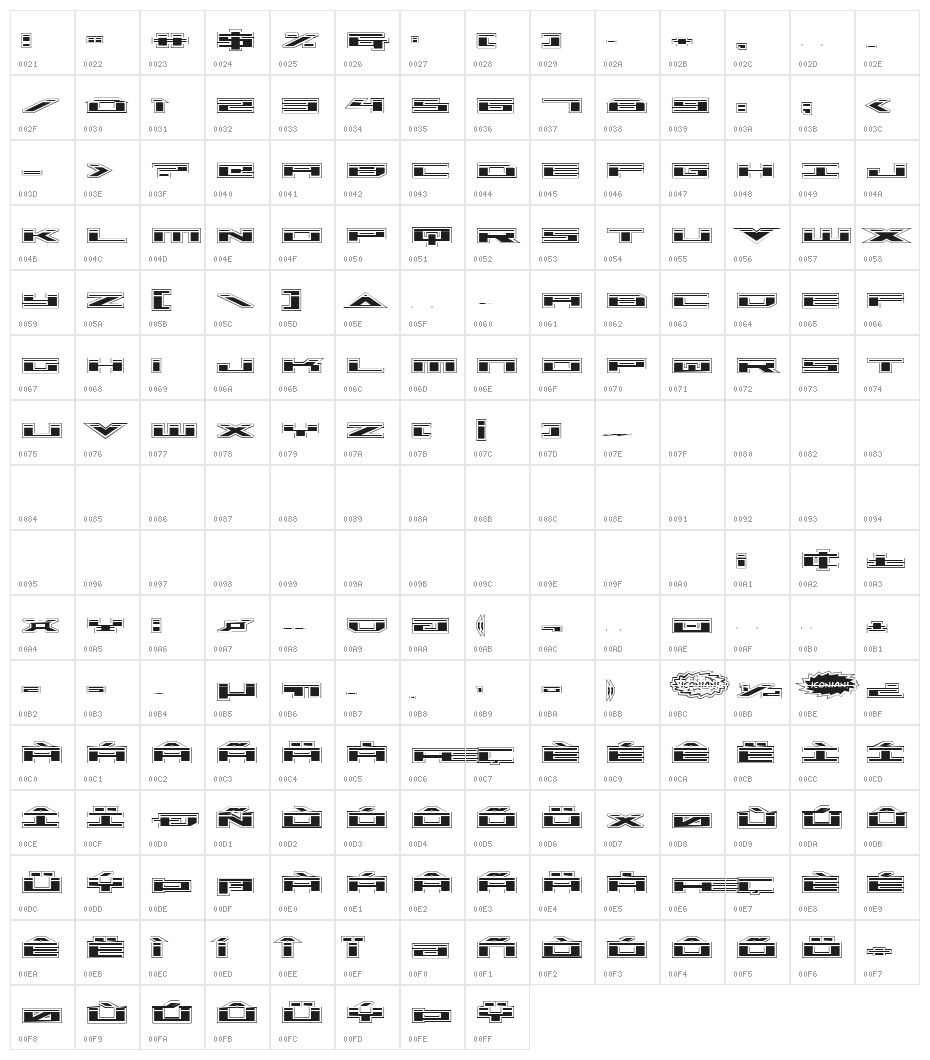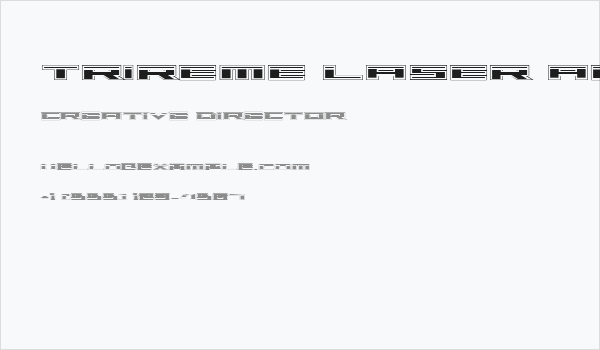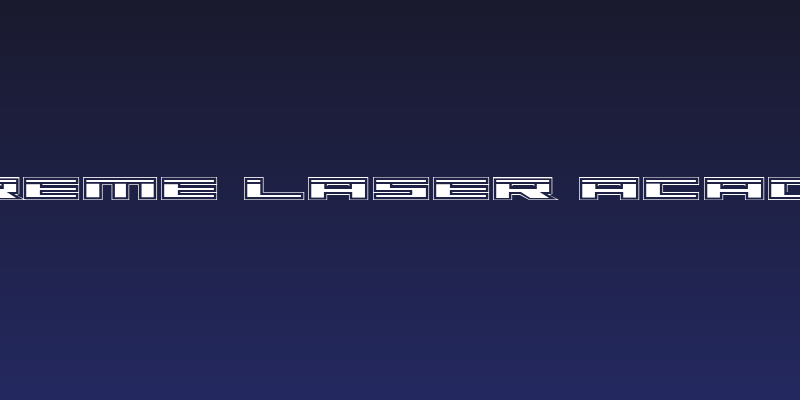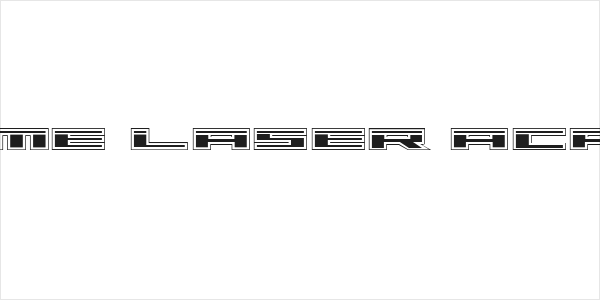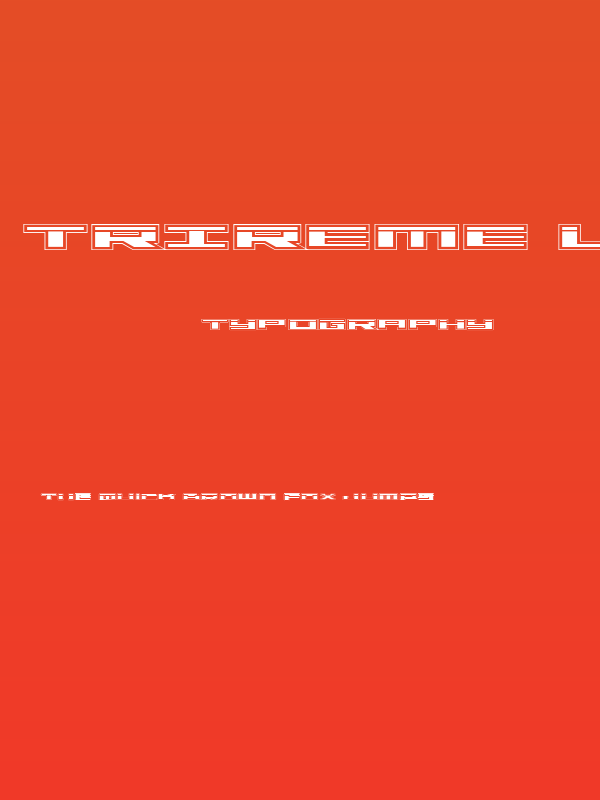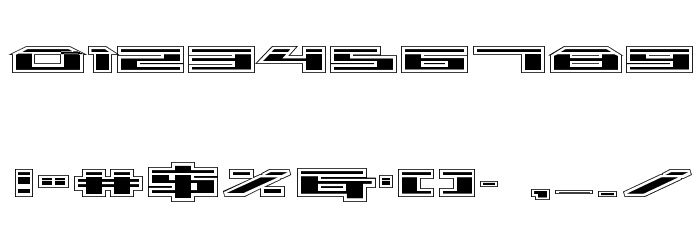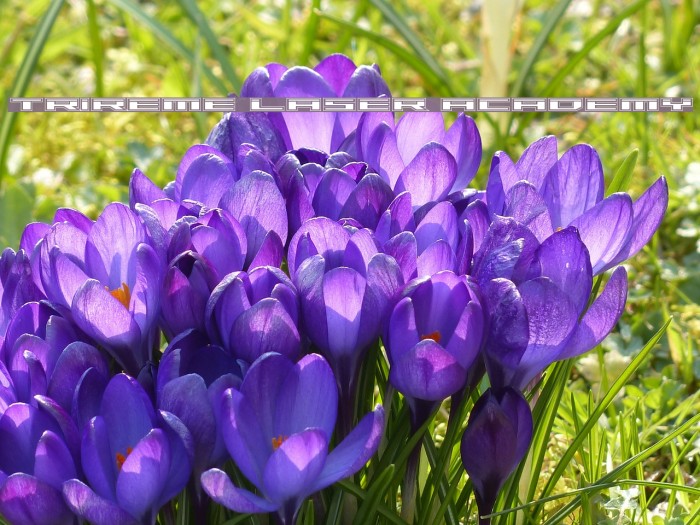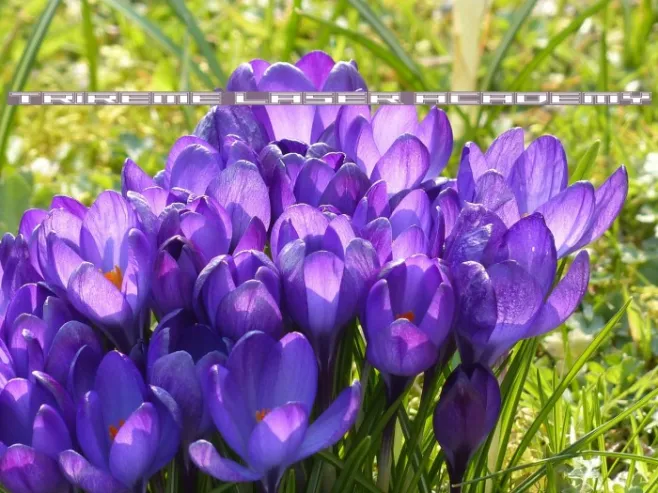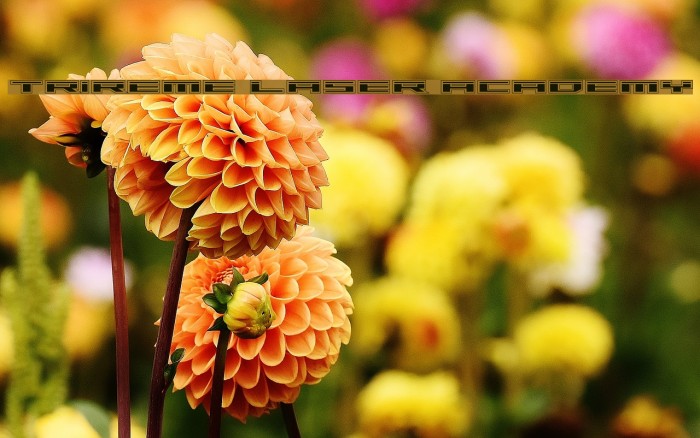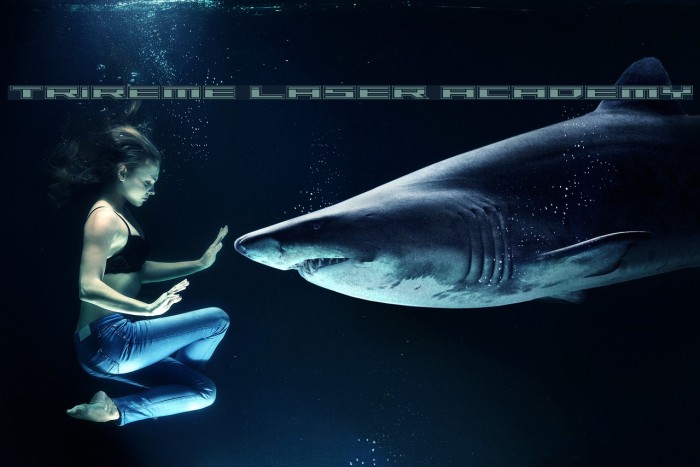
Trireme Laser Academy Font
Trireme Laser Academy Description
This font features a futuristic and geometric design, characterized by bold, angular lines and a distinct three-dimensional effect. Each character is crafted with precision, incorporating sharp edges and a sense of depth that gives it a modern, tech-inspired appearance. The uppercase and lowercase letters maintain a consistent style, with the numerals and special characters complementing the overall aesthetic. The font's unique structure makes it stand out, ideal for projects that require a contemporary and innovative look.
| Proposed Projects | Ideal for sci-fi themed designs, technology branding, video game titles, and modern posters. |